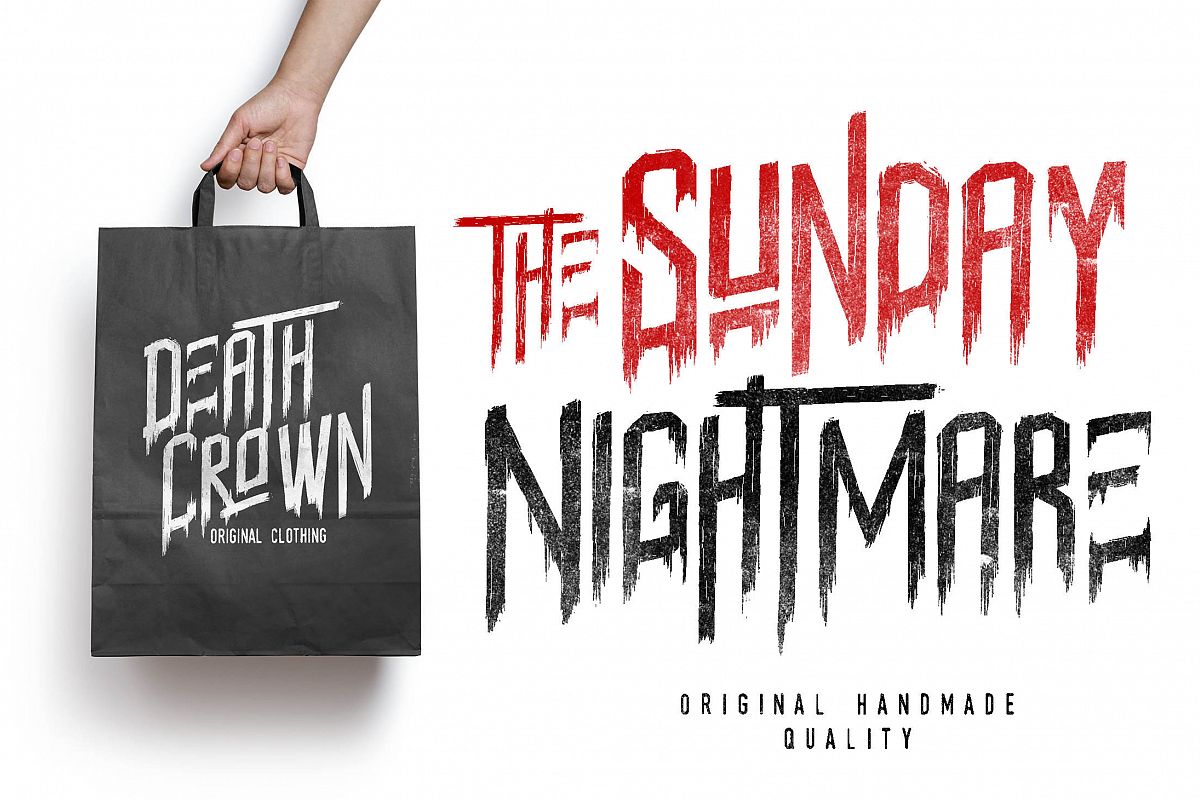
Sunday Nightmare Typeface is handmade font that inspired by movie "halloween","the walking dad","and local ghost movie in my country.
Sunday Nightmare otf- comes with upper and lowercase Standard Characters, Punctuation, Numerals. And other Glyphs variation of the OpenType features such as Stylistic Alternates and some Ligatures.